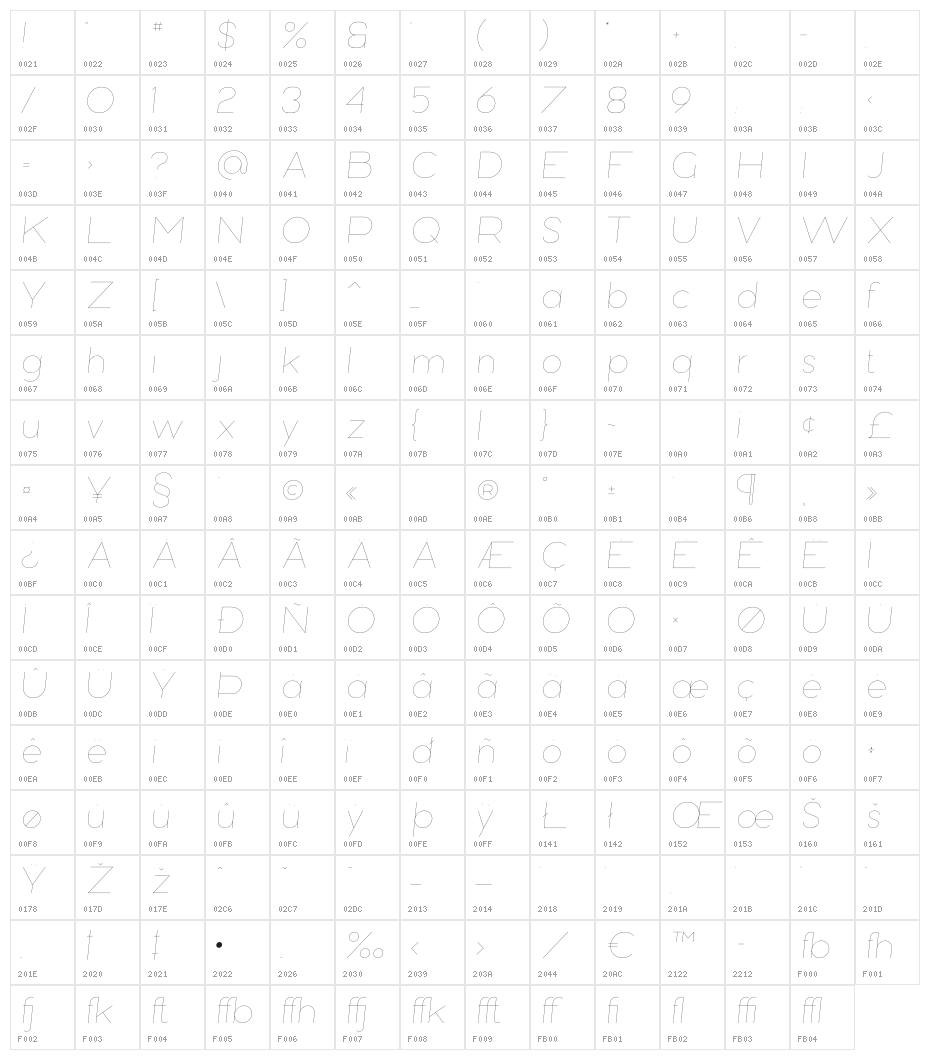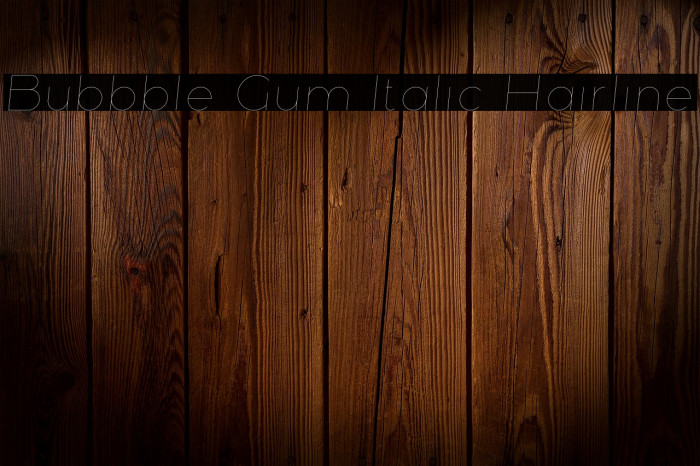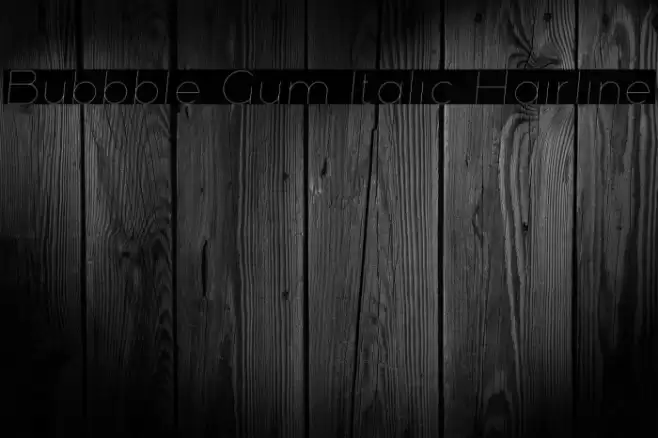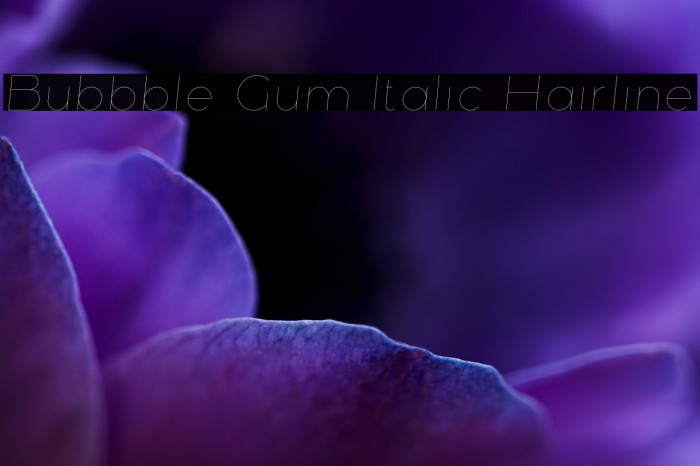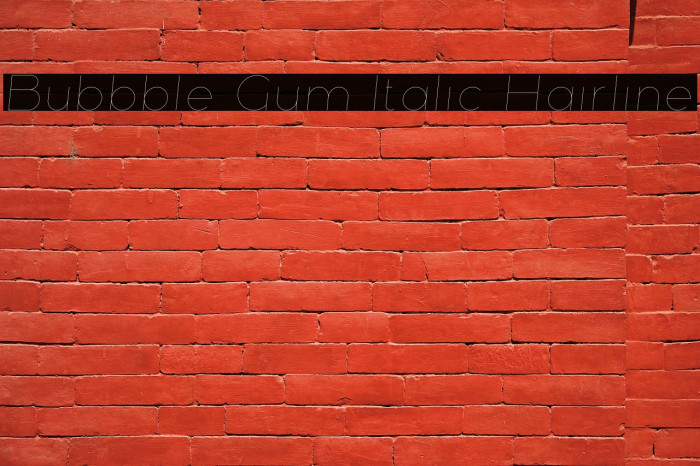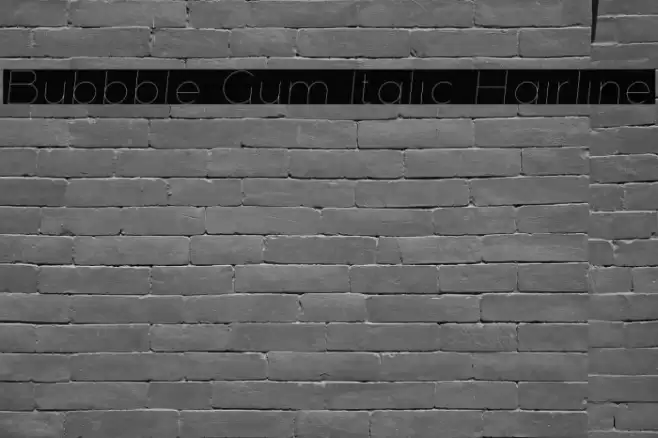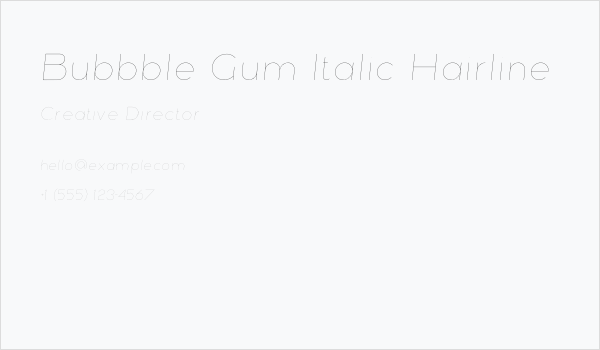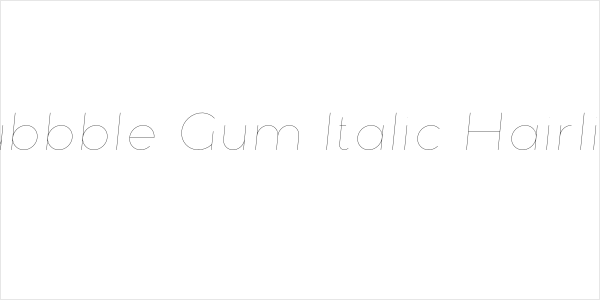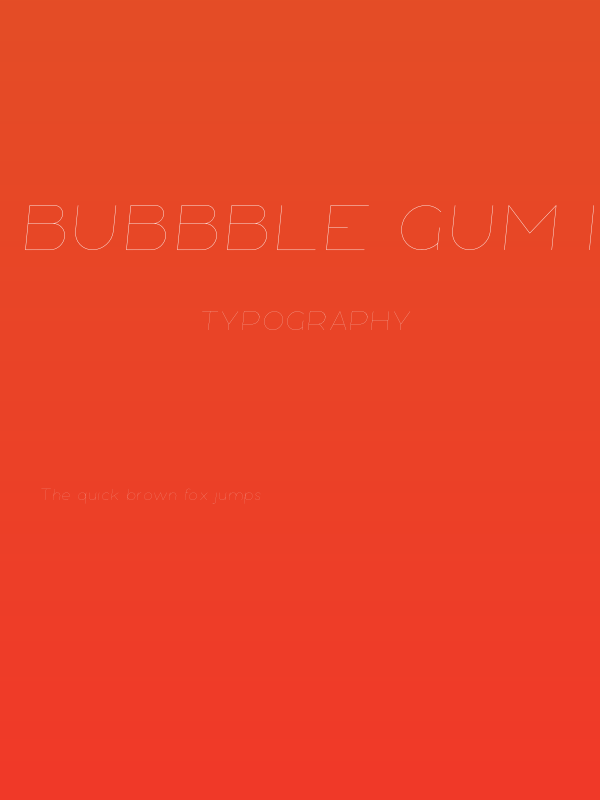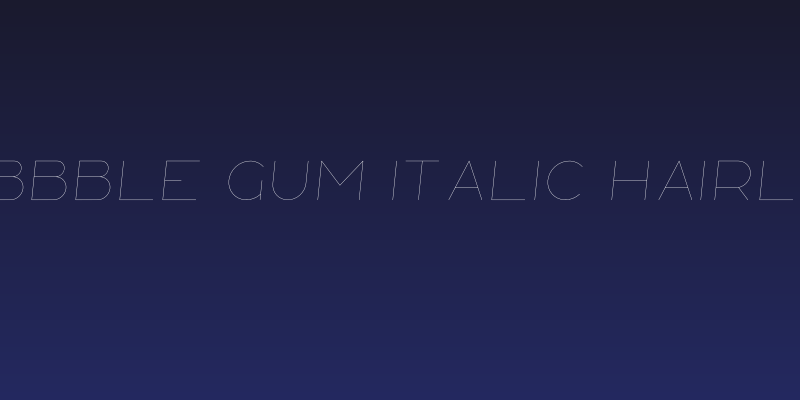
Bubbble Gum Italic Hairline Font
Bubbble Gum Italic Hairline Description
This font features a delicate and airy design with a distinct italic slant, giving it a sense of movement and elegance. The hairline strokes are extremely thin, creating a light and sophisticated appearance. The characters are crafted with a geometric precision, maintaining a consistent form throughout both uppercase and lowercase letters. The numerals and special characters follow the same sleek style, ensuring uniformity across all glyphs. This font's minimalistic approach makes it suitable for modern and clean design projects.
| Proposed Projects | Ideal for fashion magazines, luxury branding, minimalist websites, and elegant invitations. |